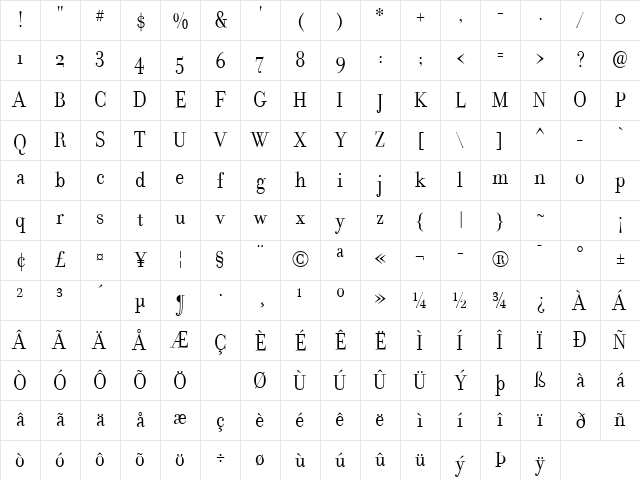
Filosofia Medium Free Font
Filosofia Medium
Filosofia Family
Filosofia Medium
Design Context for Filosofia
Filosofia is a composed and adaptable typeface that performs quietly and consistently across a wide range of design contexts.